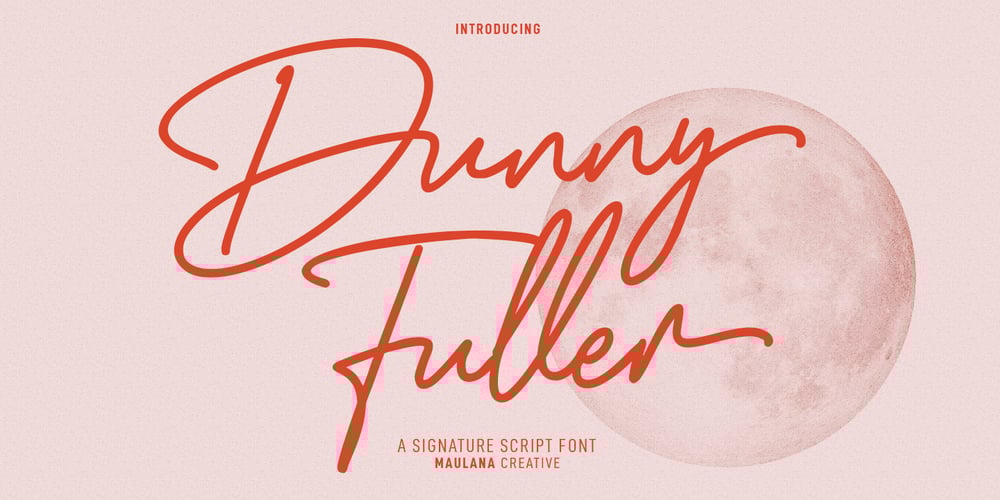
Dunny Fuller Font Family was designed by Gilang Maulana and published by Maulana Creative. Dunny Fuller contains 1 styles and family package options. Danny Fuller is an expressive freestyle signature script font. With regular mono-line consist stroke, fun character with a bit of ligatures and alternates. To give you an extra creative work. Danny Fuller font support multilingual more than 100+ language. This font is good for logo design, Social media, Movie Titles, Books Titles, a short text even a long text letter and good for your secondary text font with sans or serif. Make a stunning work with Danny Fuller font.Cheers, Maulana Creative